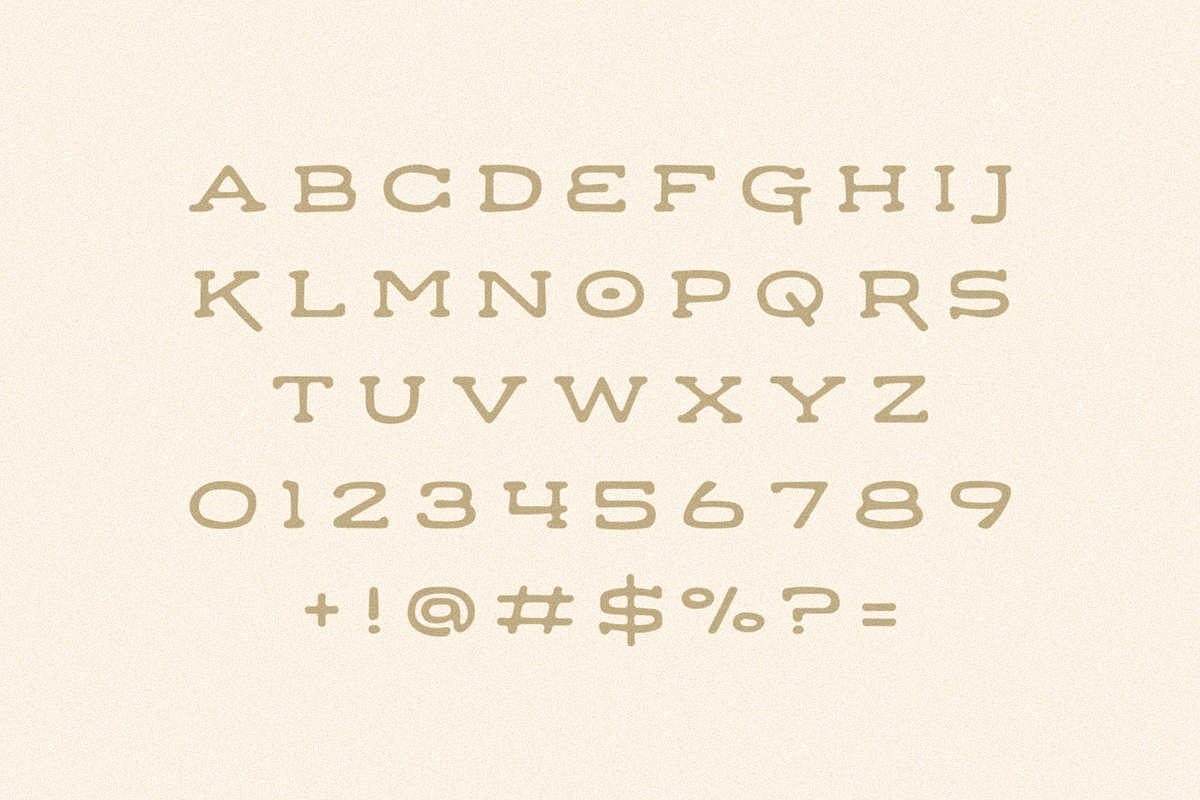
Taco Run
TACO RUN – Extra spicy display font, inspired by long summer beach days and early dinners at the local taco truck.
- Uppercase letters ONLY
- Standard English alphabet
- Numbers, Currency Symbols, Standard Punctuation